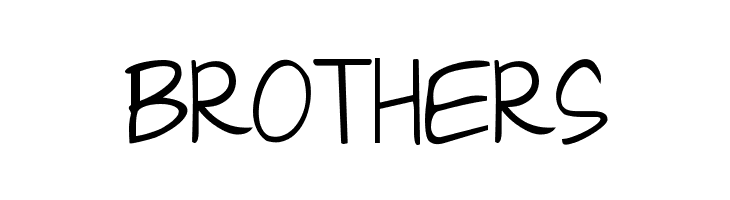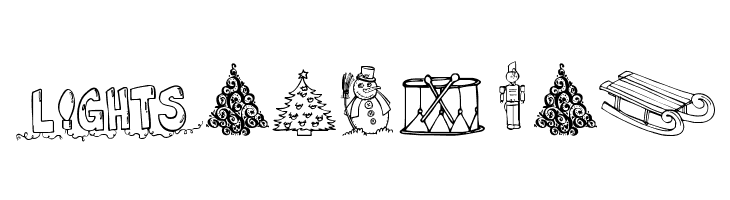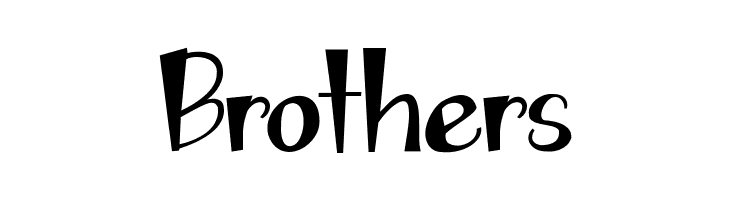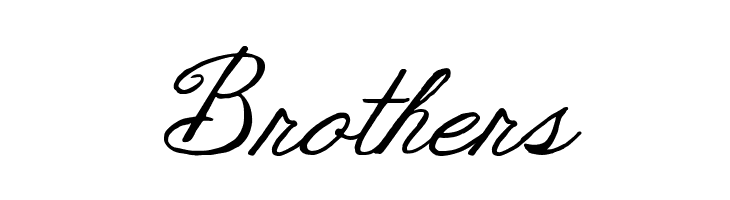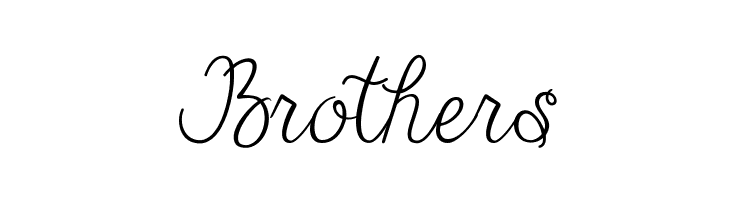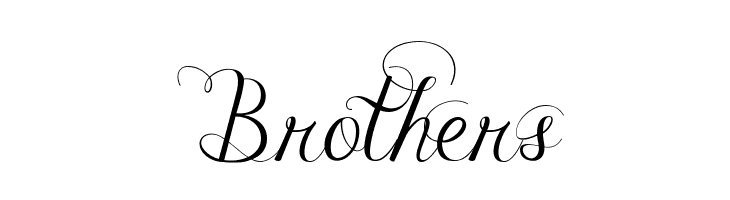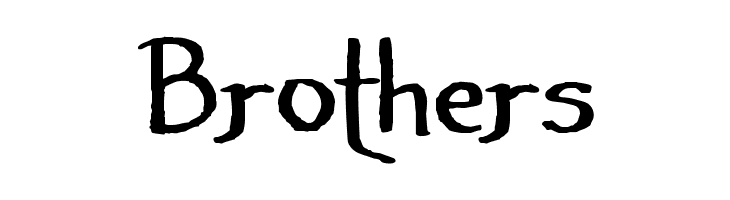
• Janda Amazing Grace
A playful, hand-drawn font with a whimsical and artistic style.
• Janda Apple Cobbler
A whimsical, decorative font with playful curls and loops.
• Janda Apple Cobbler Solid
A playful and whimsical font with bold, curvy elements and creative swirls.
• Janda As Long As You Love Me
An elegant, cursive font with a sophisticated, handwritten style.
• Janda Capslock
A playful, handwritten font with smooth, flowing lines and a casual style.
• Janda Capslock
• Janda Celebration Script
An elegant script font with intricate swirls and decorative flourishes.
• Janda Cheerful Script
A playful, cursive script font with elegant loops and swirls.
• Janda Christmas Doodles
A festive collection of hand-drawn Christmas-themed doodles for holiday designs.
• Janda Christmas Doodles
A whimsical collection of hand-drawn Christmas-themed doodles.